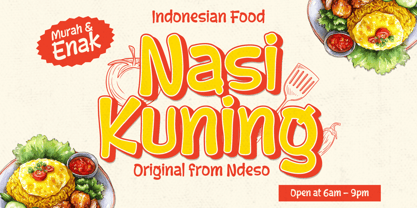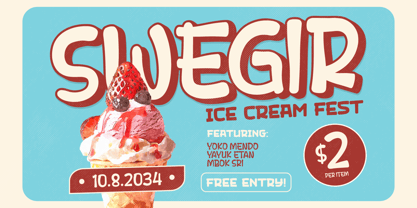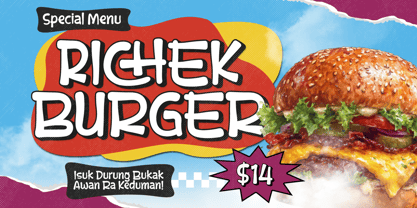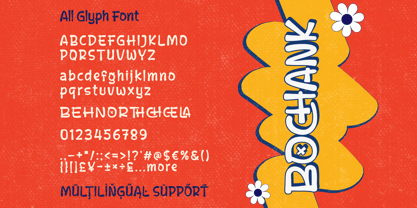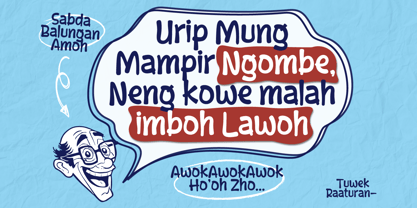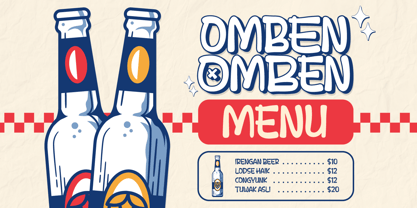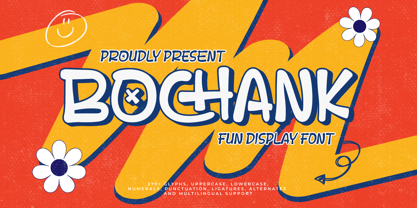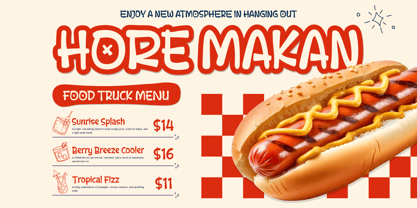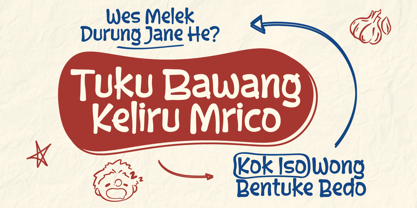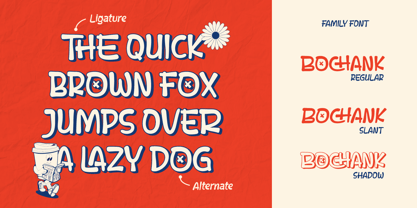
Bochank
by Twinletter
The Bochank Font Family was designed by Rozikan and published by Twinletter. Bochank contains 3 styles and family package options. More about this family
Bochank is a cheerful, character-filled Fun Display Font typeface, designed to create a friendly, energetic, and cute atmosphere in every design. Merging retro handwriting elements with unique chubby and bubbly letterforms, Belayo provides a strong, memorable, and delightfully fun identity. The font comes with over 370 glyphs, including uppercase and lowercase letters, punctuation, ligatures, alternates, and extensive multilingual support. Its visual flexibility is further enhanced by style options like Regular, Slant, and Shadow perfect for achieving a vintage 3D pop-out effect. Its bold structure ensures maximum visual impact across all platforms, making it a versatile asset for modern needs up to groovy retro aesthetics. Bochank is ideal for projects requiring a playful and familiar vibe. Its key use cases include Food Branding (menus, food packaging), children's product designs, creative event posters, social media headlines, and promotional materials that evoke a smile. The combination of unique shapes and a friendly feel makes it the premier Bubble Font for brands seeking to stand out and be instantly lovable by their audience. What’s Included: - All glyphs and Feature - We highly recommend using design software that supports OpenType features and Glyphs panels (such as Adobe Illustrator, Photoshop, or Corel Draw) to access all the stylistic variations easily. - PUA Encoded: All glyphs are fully accessible without any additional software. - Multilingual Support: Fully supports 85+ languages, including: Afrikaans, Albanian, Asu, Basque, Bemba, Bena, Breton, Catalan, Chiga, Cornish, Croatian, Czech, Danish, Dutch, Embu, English, Esperanto, Estonian, Filipino, Finnish, French, Friulian, Galician, Gusii, Hungarian, Indonesian, Irish, Italian, Kabuverdianu, Kalenjin, Kamba, Kikuyu, Kinyarwanda, Latvian, Lithuanian, Lower Sorbian, Luo, Luxembourgish, Luyia, Machame, Makhuwa-Meetto, Makonde, Malagasy, Maltese, Manx, Meru, Morisyen, North Ndebele, Norwegian Bokmål, Norwegian Nynorsk, Nyankole, Oromo, Polish, Portuguese, Quechua, Romanian, Romansh, Rombo, Rundi, Rwa, Samburu, Sango, Sangu, Scottish Gaelic, Sena, Serbian, Shambala, Shona, Slovak, Slovenian, Soga, Somali, Spanish, Swahili, Swedish, Swiss German, Taita, Teso, Turkish, Upper Sorbian, Uzbek (Latin), Volapük, Vunjo, Walser, Zulu.
Designers: Rozikan Rozikan
Foundry: Twinletter